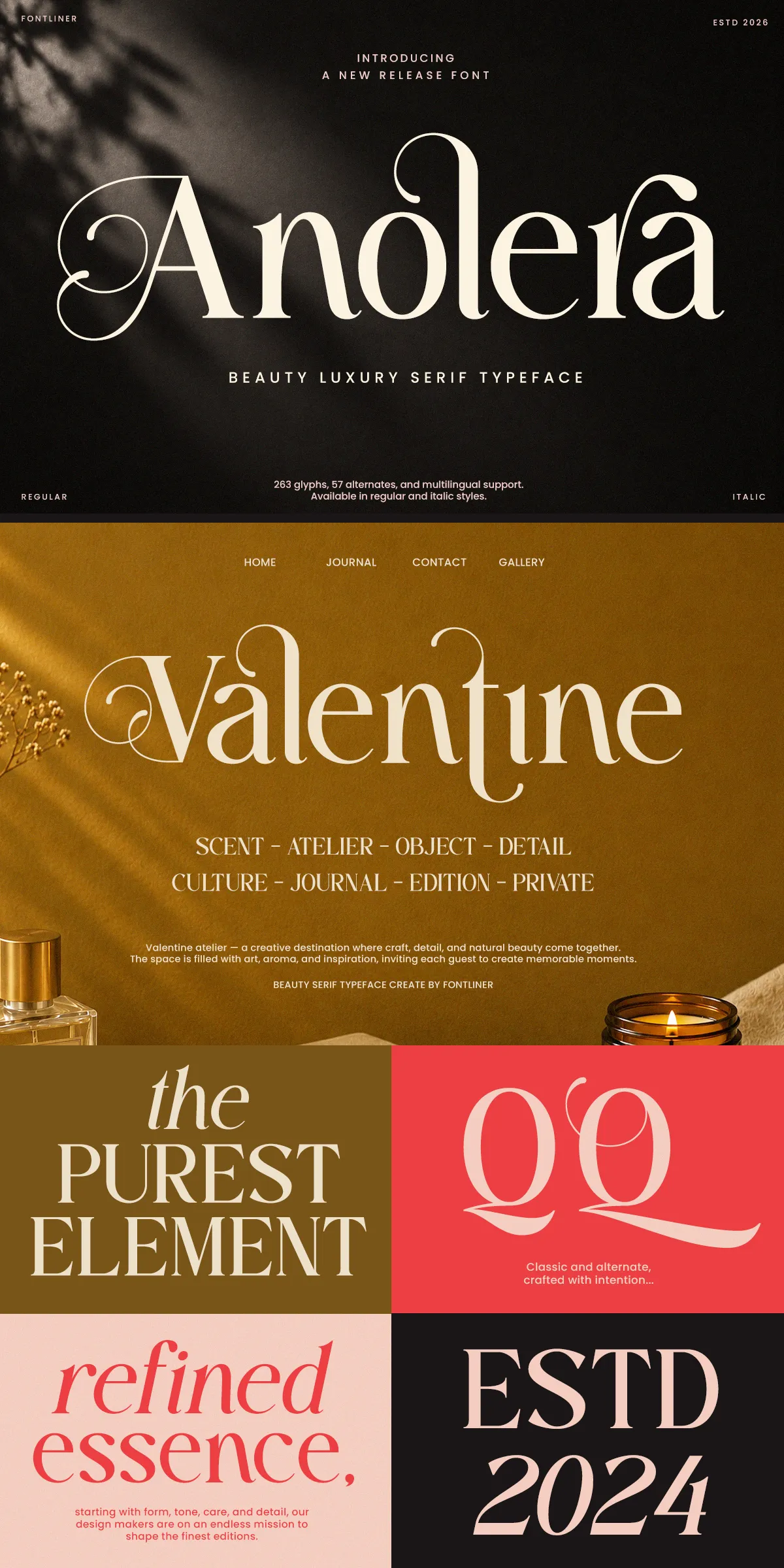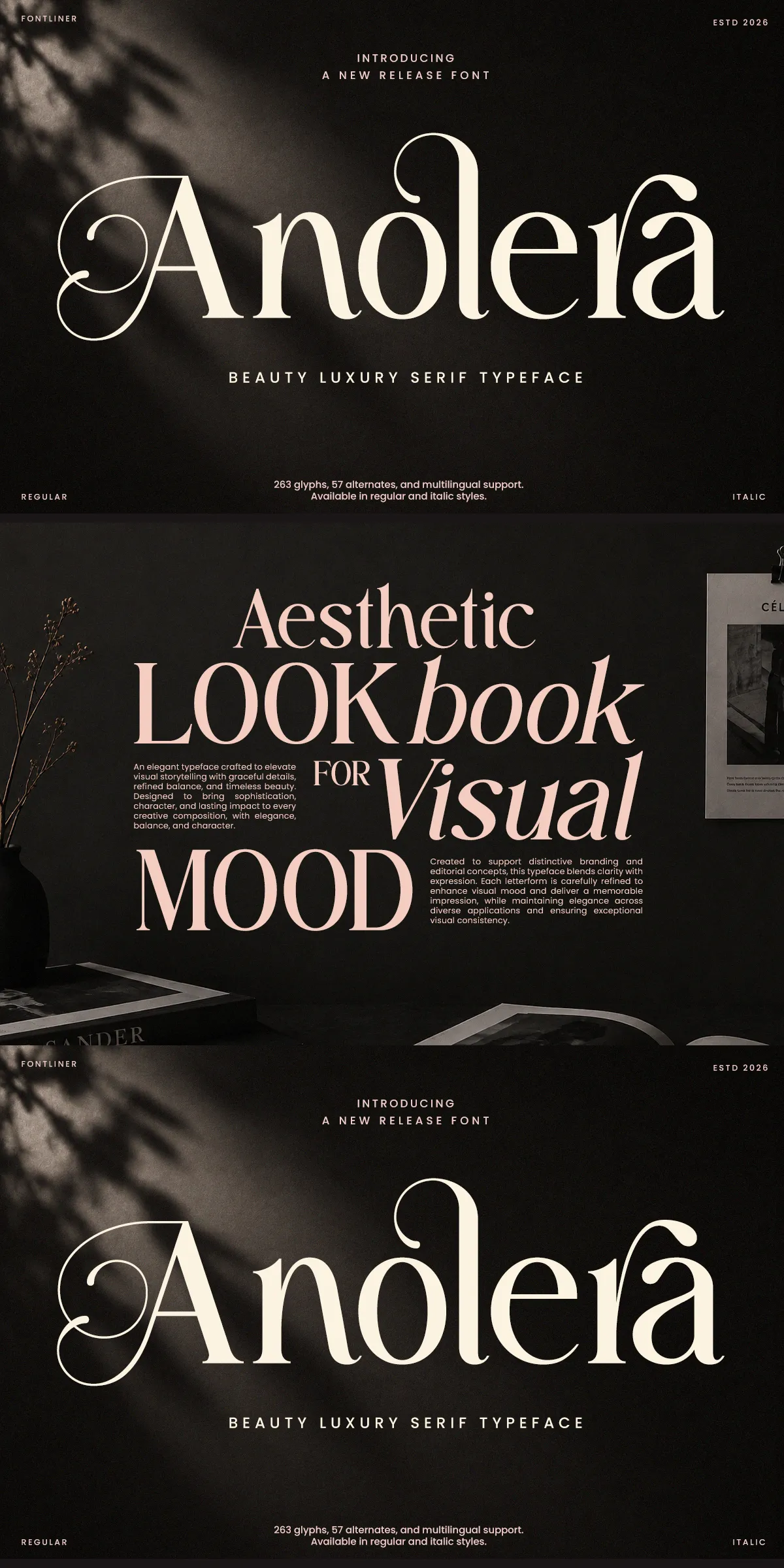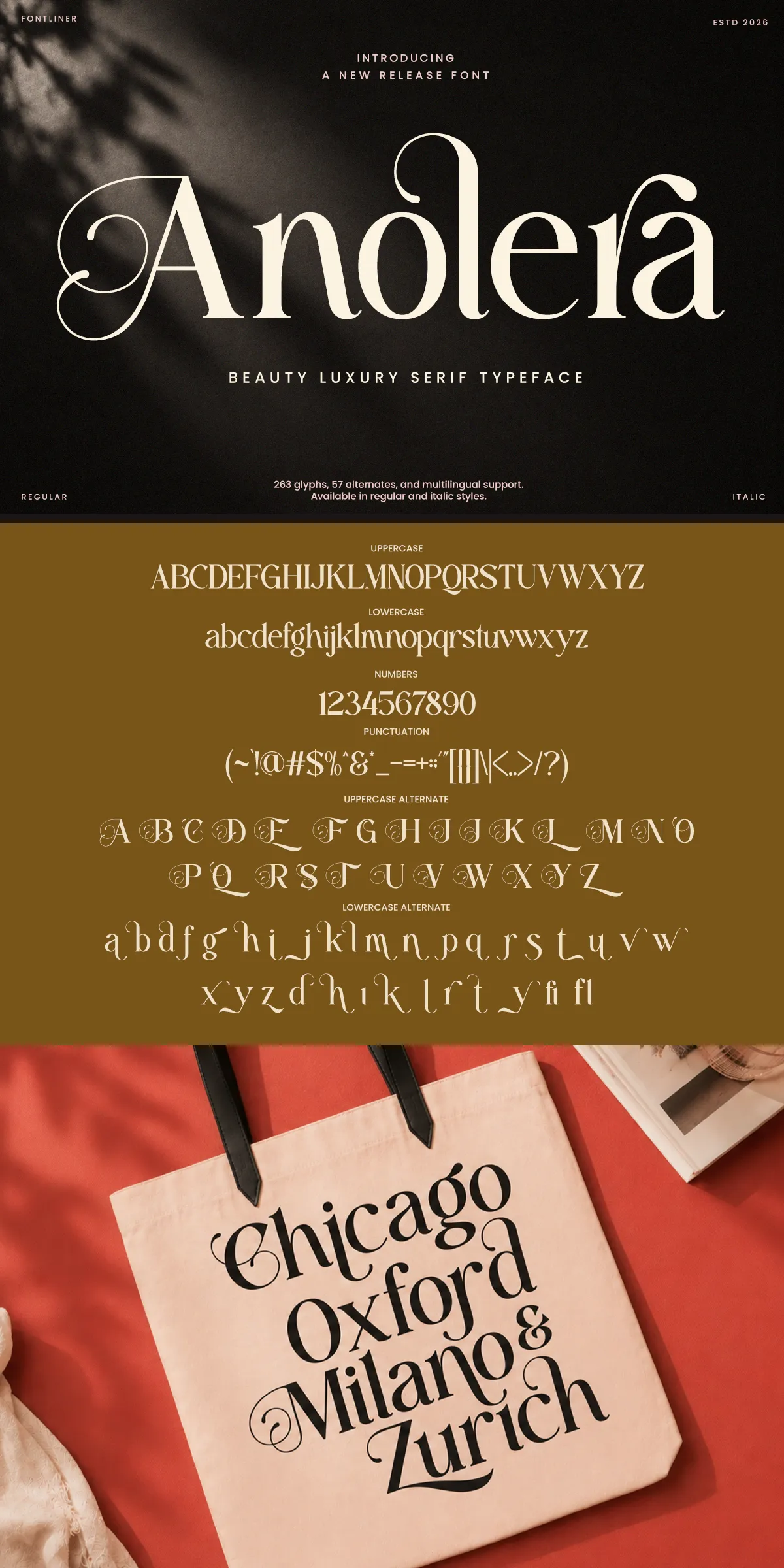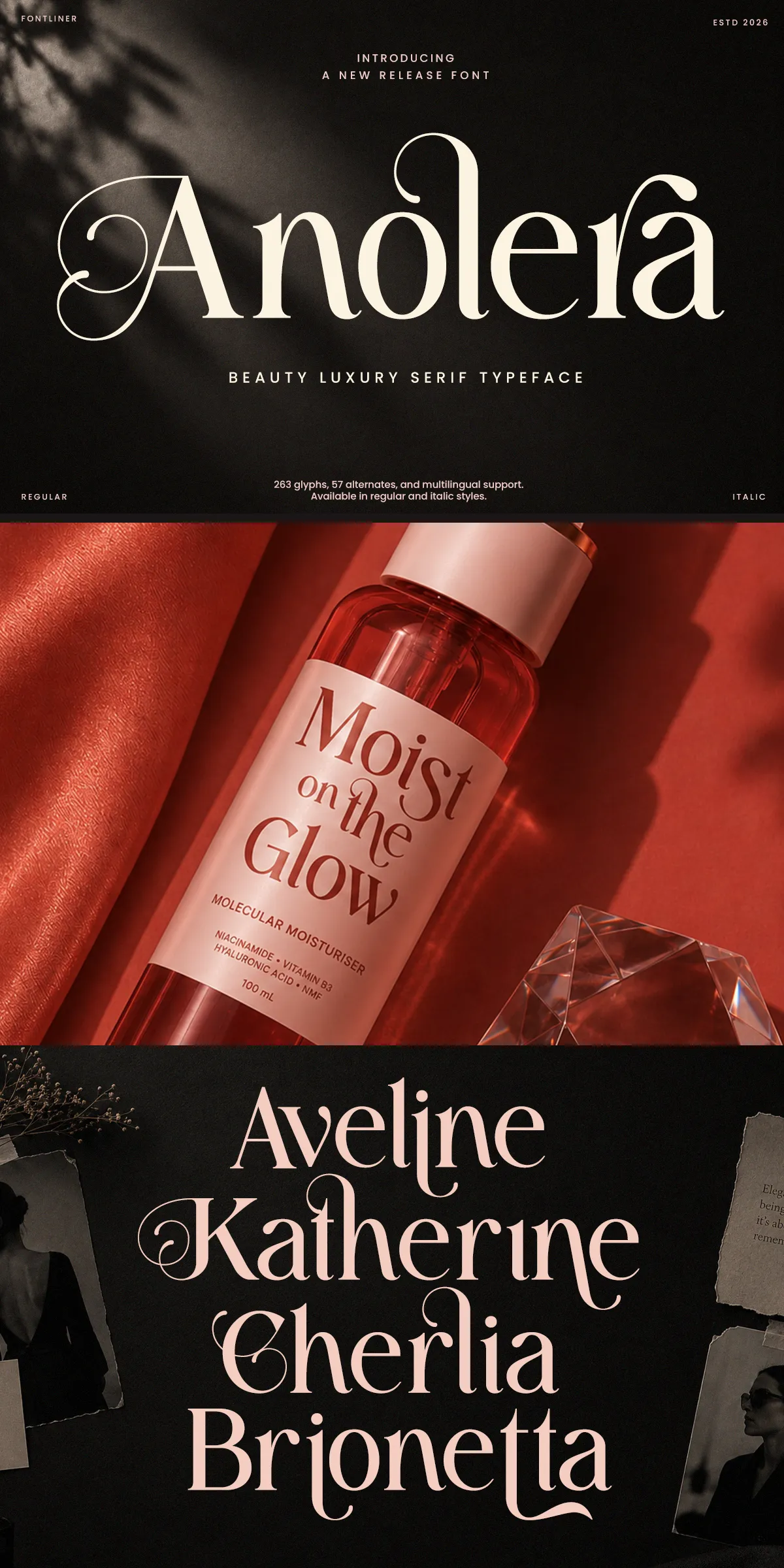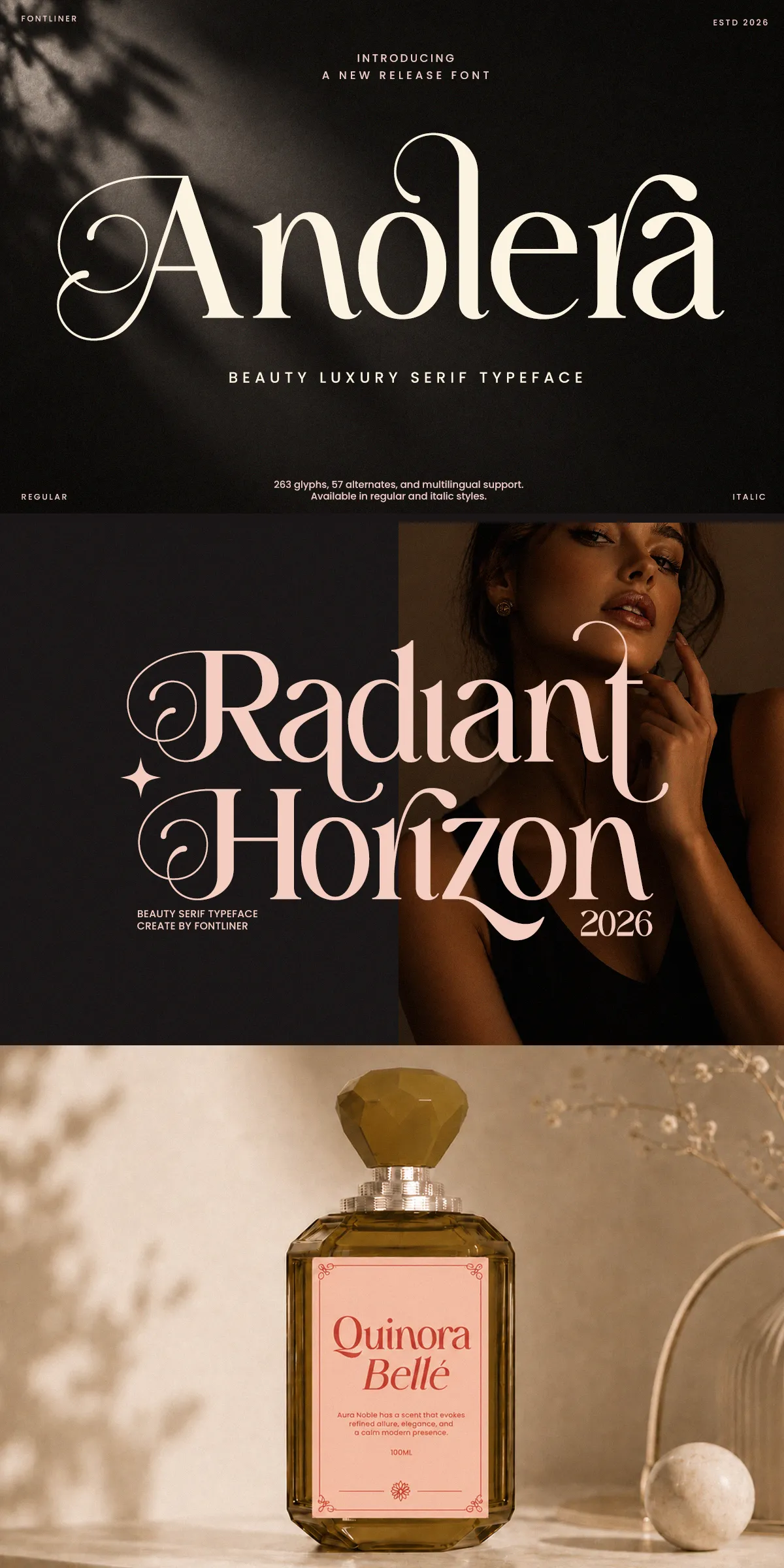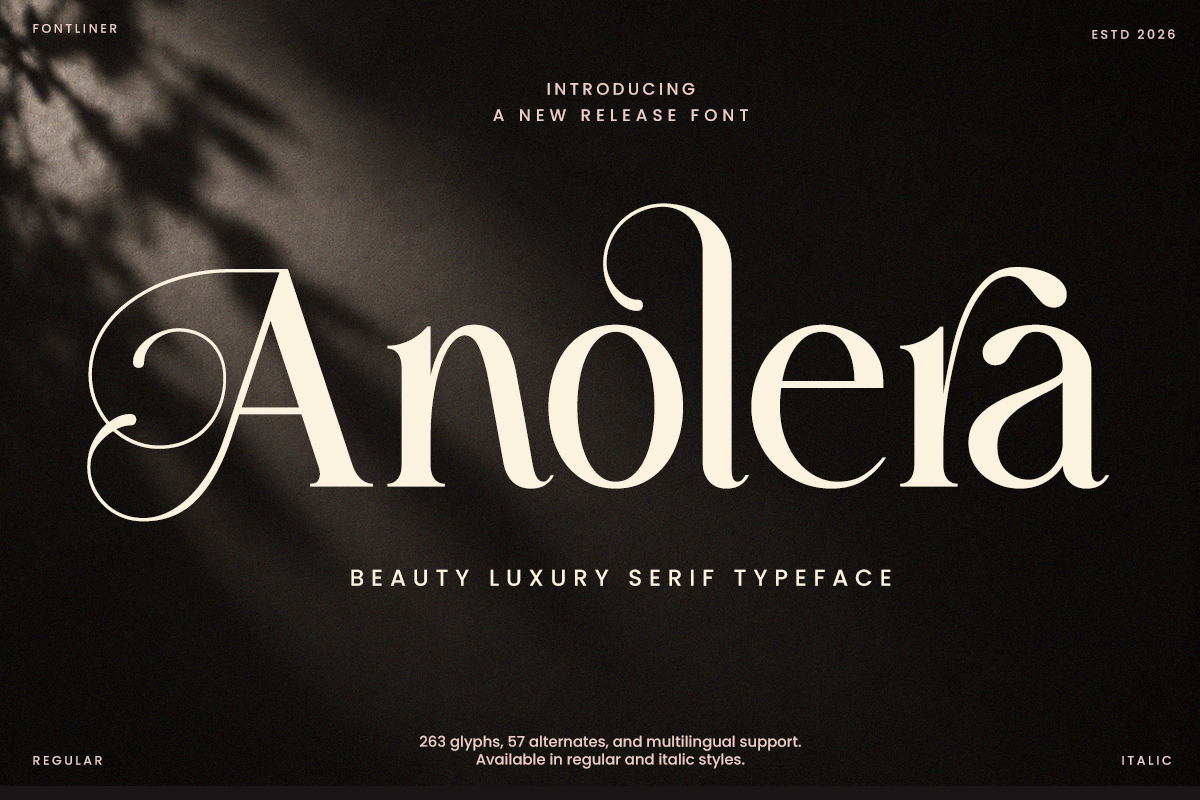
Anolera elevates visual identities with a refined, fashion-forward serif that balances elegance and utility. Designed with graceful curves and delicate contrast, Anolera gives designers direct control to craft premium, distinctive typographic compositions. The family moves beyond decorative intent: it reads clearly at display sizes, scales confidently for headlines, and retains poise across packaging, editorial spreads, and identity systems.
Distinctive Graceful Letterforms That Command Attention
Anolera pairs classic serif foundations with considered decorative details. Each character features sculpted terminals, soft flares, and purposeful contrast that add a sense of luxury without sacrificing legibility. The design emphasizes rhythm and harmony, so lines of text feel balanced while individual words gain an elegant, elevated presence. Use Anolera to communicate sophistication and attract immediate visual interest.
Extensive Alternates And Swashes For Creative Expression
The font ships with a generous set of stylistic alternates, swashes, and curated ligatures that let you tailor tone and voice. Swap in alternate capitals for refined monograms, deploy swashes to accent logo marks and headlines, or combine ligatures to create fluid wordmarks. The alternates encourage exploration and make it simple to produce unique, memorable treatments without manual vector work.
Versatile Applications Across Premium Design Contexts
Anolera proves exceptionally versatile. It works as a headline and logotype tool for beauty and luxury brands, enhances editorial covers and feature headlines, and brings a tactile couture quality to cosmetic packaging and perfume labels. Wedding stationery, boutique identity systems, jewelry lookbooks, and lifestyle campaigns all benefit from Anolera’s refined presence. The font supports designers who need both ornamental character and everyday usability.
Multilingual Support And Complete Character Coverage
Practical Guidance For Using Alternates And Swashes
Activate alternates through OpenType features in your design application or use the provided glyph panel to pick precise characters. Reserve swashes for display text and logotypes to prevent legibility issues at small sizes. Combine alternates with controlled tracking and generous leading to create breathing space that highlights the font’s sculpted details.
Pairing Recommendations And Styling Tips For Designers
Pair Anolera with a restrained sans-serif to anchor long-form body copy or interface elements. A minimalist geometric or humanist sans keeps layouts modern while letting Anolera shine in headlines and brand marks. For packaging, use heavier cuts of Anolera for product names and lighter italics for descriptive copy to preserve hierarchy and clarity.